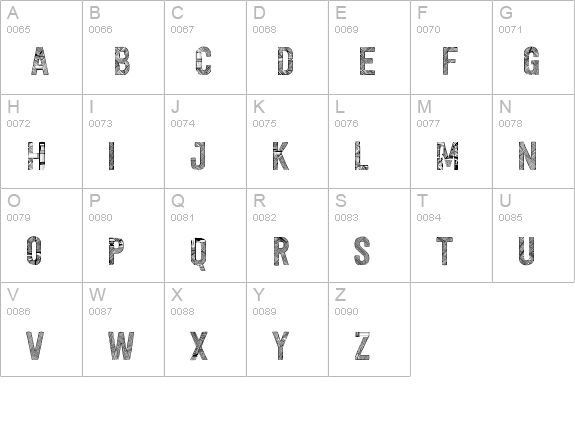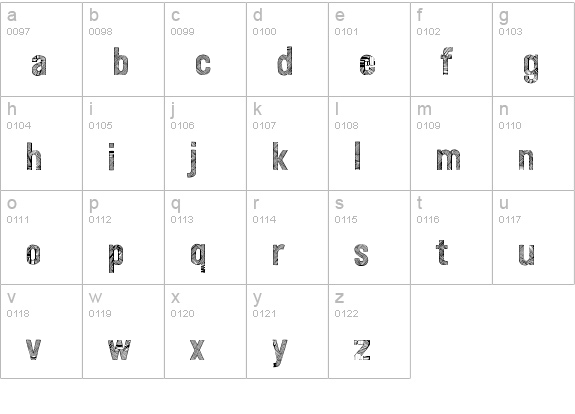
Festivo LC Sketch1 Font Details
Festivo LC Sketch1 is a charming and whimsical font that exudes a playful and festive vibe. With its unique hand-drawn style and quirky details, this font is perfect for adding a touch of fun to your designs. The uneven lines and uneven spacing give Festivo LC Sketch1 a relaxed and casual feel, making it ideal for projects that require a more laid-back and approachable aesthetic. Best of all, Festivo LC Sketch1 is available for free download at FontsMarket.com. This means you can easily access this delightful font for all your creative endeavors without any cost. Whether you're working on party invitations, greeting cards, or social media graphics, Festivo LC Sketch1 is sure to bring a joyful and celebratory element to your projects. Download it today and let your imagination run wild with this charming and free-spirited font.